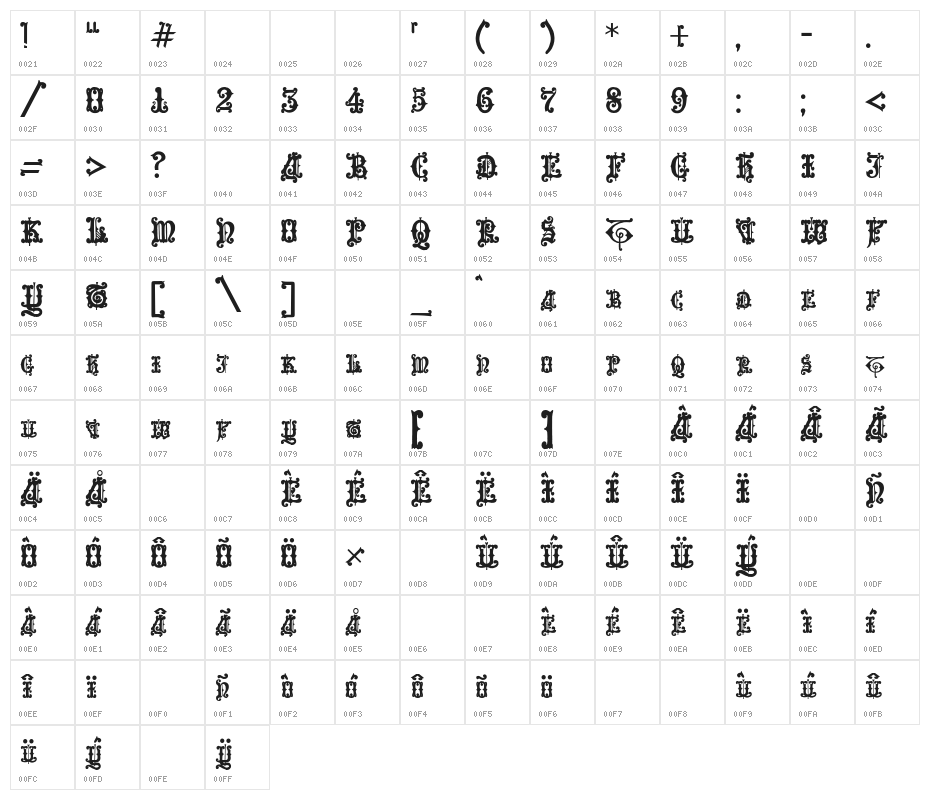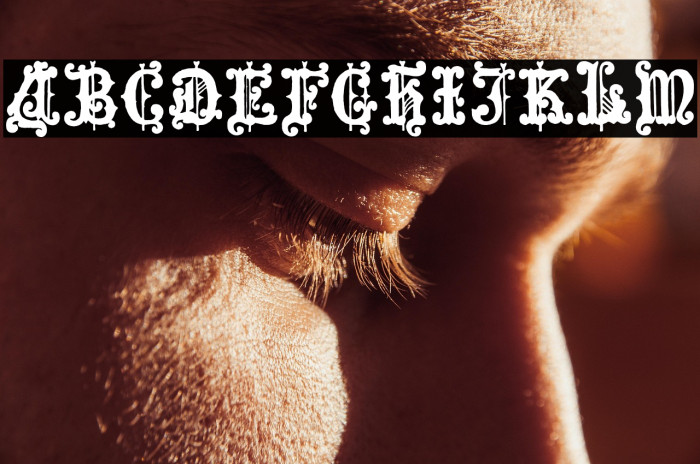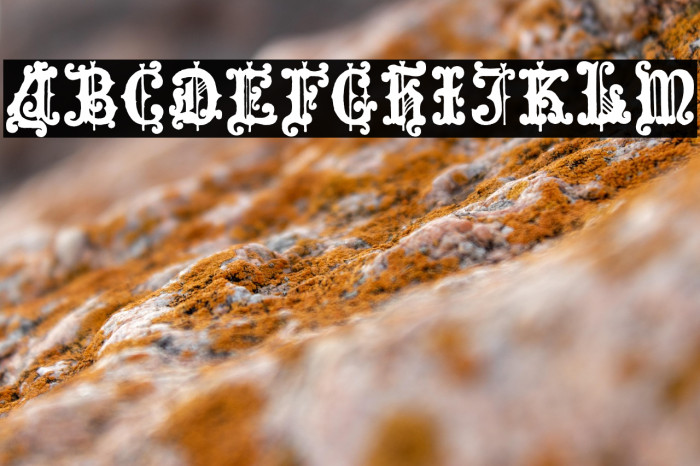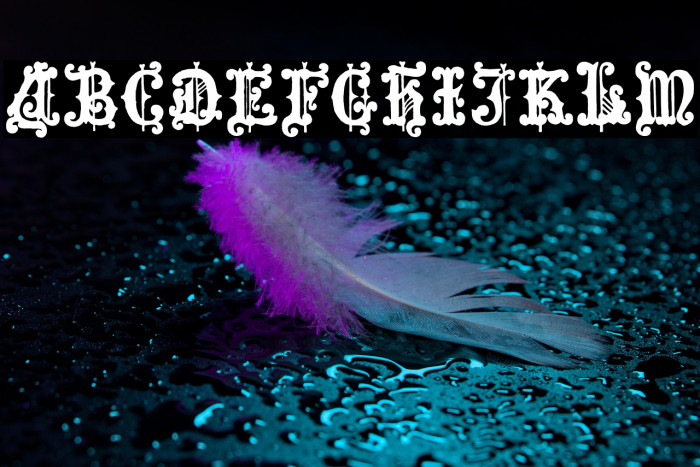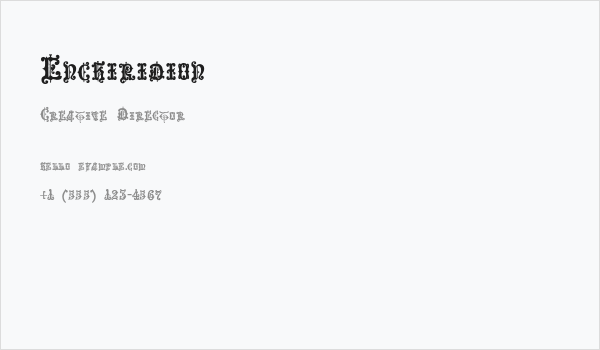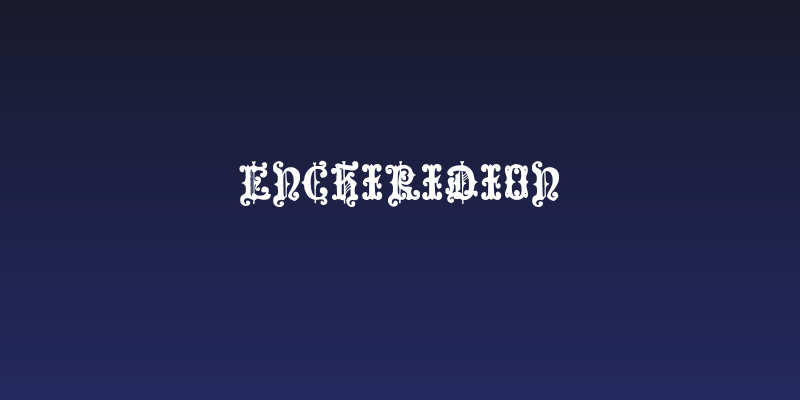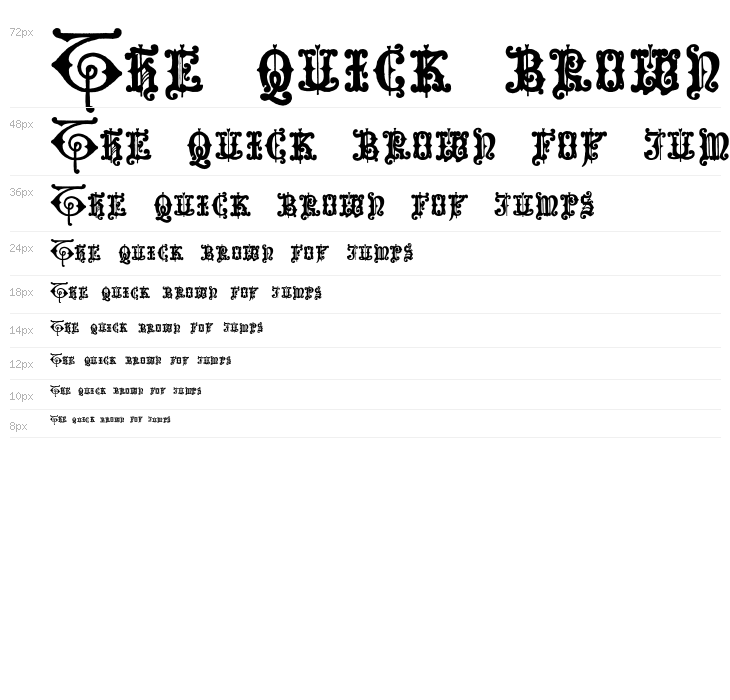
Enchiridion Font
Enchiridion Description
This font features an intricate and ornate design, reminiscent of traditional blackletter styles with a modern twist. Each character is adorned with elaborate flourishes and decorative elements, creating a sense of elegance and historical charm. The uppercase letters are particularly bold and commanding, while the lowercase letters maintain the same level of detail and complexity. The numerals and special characters are equally ornate, ensuring consistency throughout the typeface. This font is perfect for projects that require a touch of sophistication and a nod to classical typography.
| Proposed Projects | Ideal for wedding invitations, historical documents, book covers, and branding that requires a vintage or classical touch. |